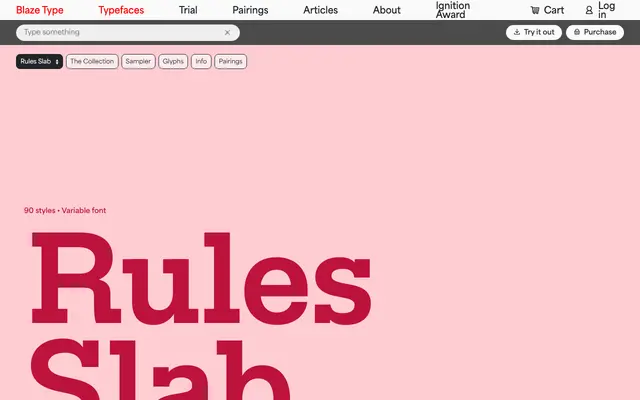
Rules Slab
A large slab serif system spanning five widths and nine weights, available as a variable font across 90 styles.
Five width families run from Compressed through to Expanded, each carrying nine weights from Thin to Black with matching italics, totalling 90 styles. The variable font format makes the full range accessible across a continuous axis, suiting applications from narrow-column editorial to wide-format display work. The consistent slab construction across all widths keeps the system coherent when mixing widths on a single page.
A slab serif family with unmodulated rectangular serifs across five width variants and nine weights, consistent with a geometric or neo-grotesque slab construction.